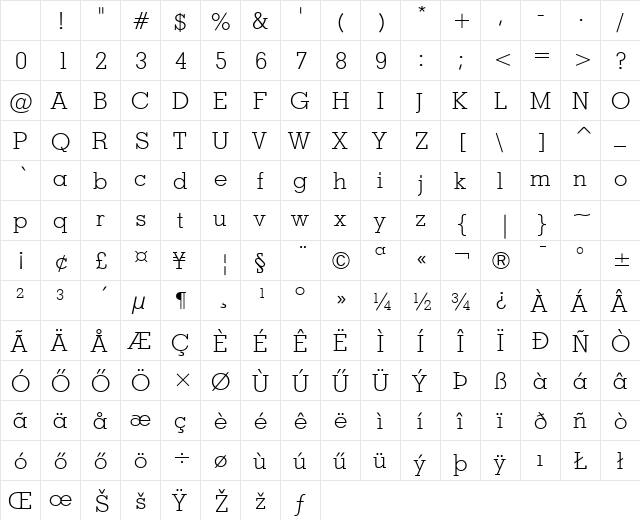
Complete Geometric-Slabserif703 LtHU Light glyph index. Displaying only characters natively supported by Geometric-Slabserif703 LtHU Light font.
Geometric-Slabserif703 LtHU features prominent, blocky serifs that give it a confident, grounded presence - equally at home in editorial settings and bold branding work. Its slender proportions lend an understated elegance to any composition.